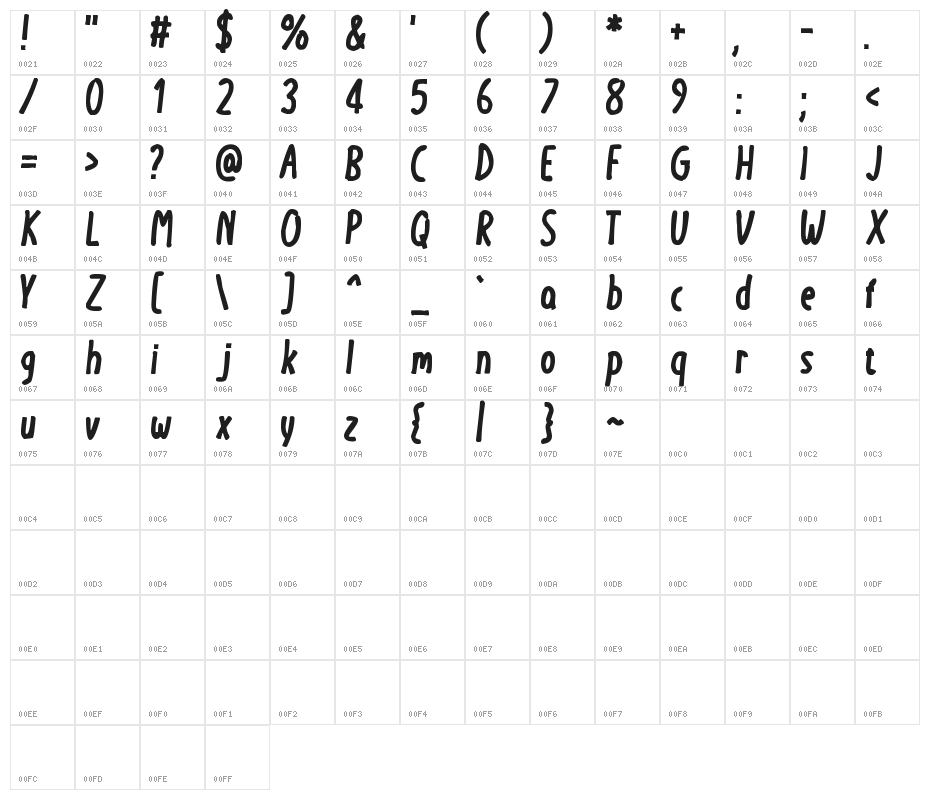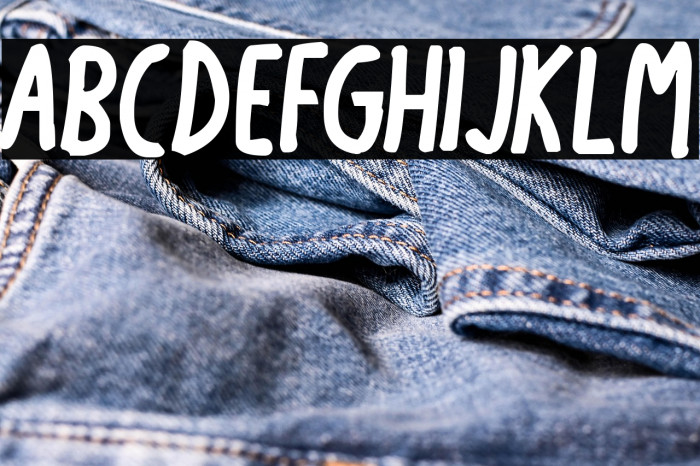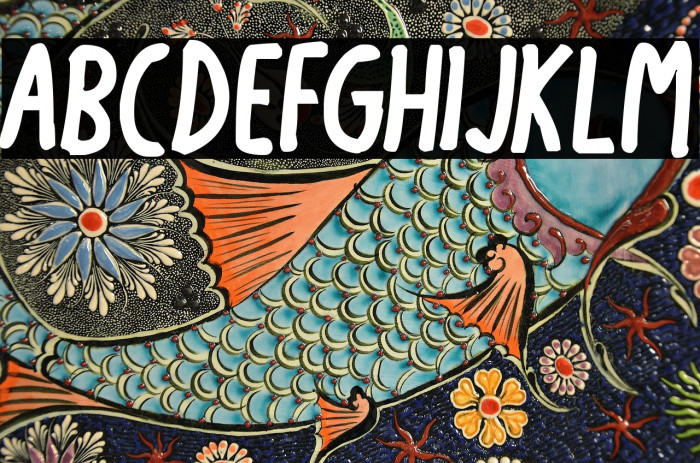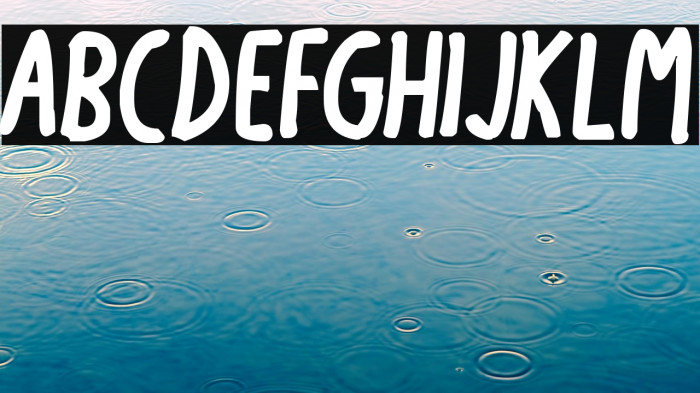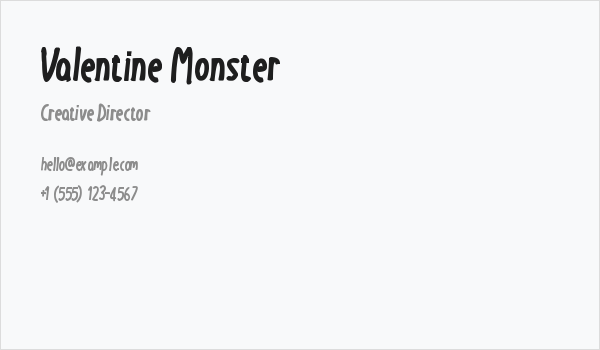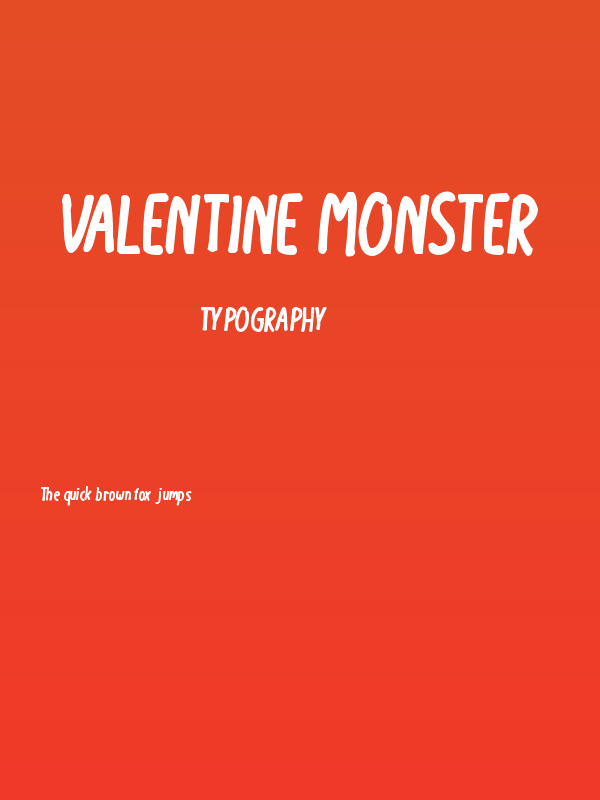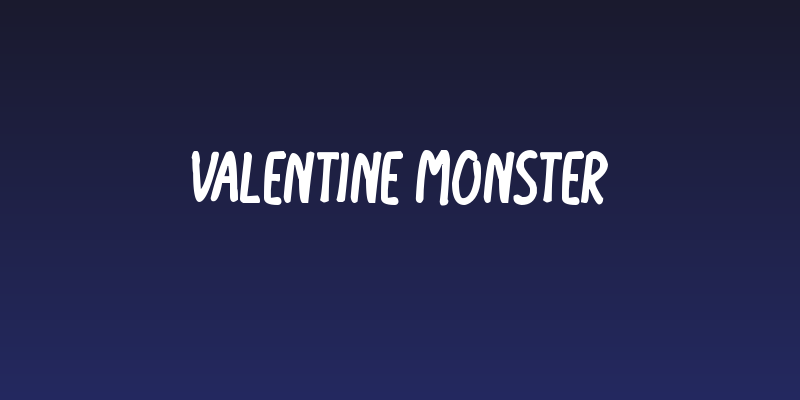
Valentine Monster Font
Valentine Monster Description
This playful and bold font features a handwritten style with a whimsical touch. The characters are slightly irregular, giving it a lively and energetic feel. The uppercase and lowercase letters maintain a consistent flow, while the numbers and special characters complement the overall design. The strokes are thick and rounded, enhancing its friendly and approachable appearance. This font is perfect for projects that require a fun and informal vibe, such as children's books, party invitations, or playful branding. Its unique style makes it stand out, adding a touch of personality to any text.
| Proposed Projects | Ideal for children's books, party invitations, playful branding, and informal designs. |